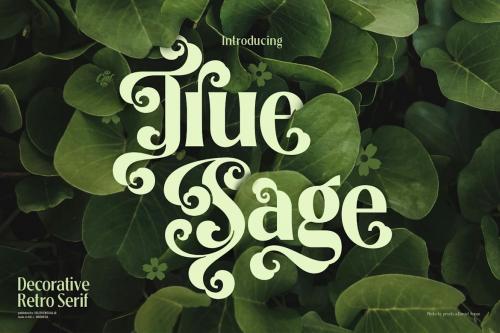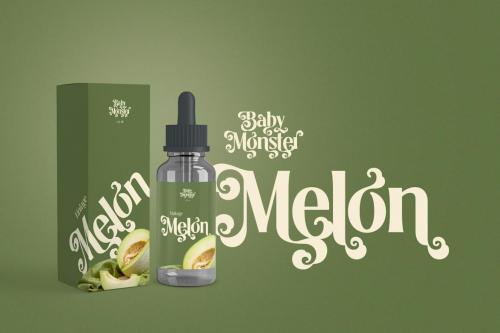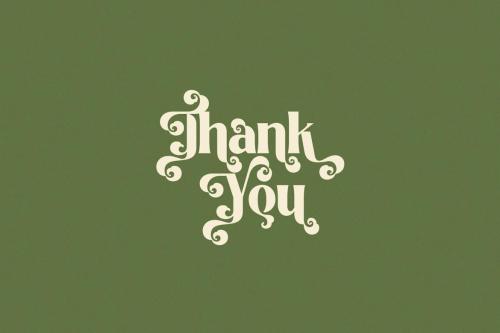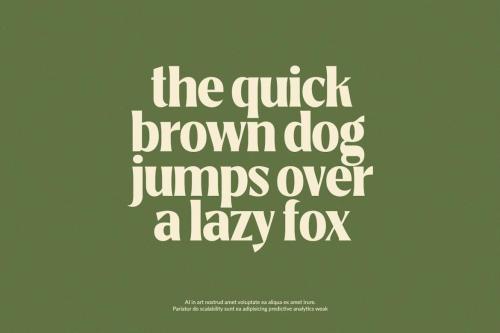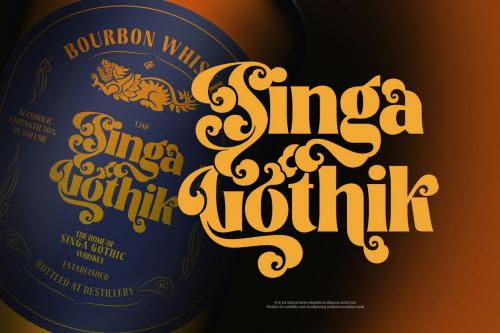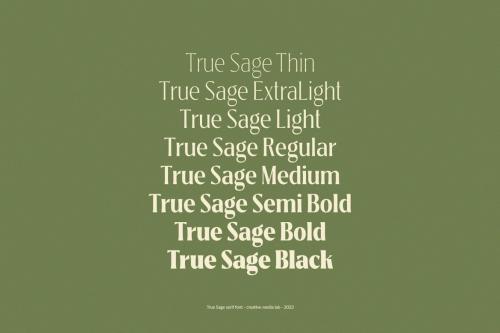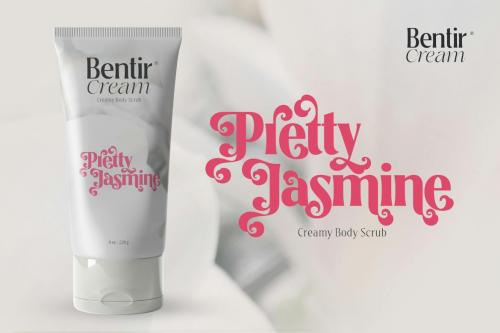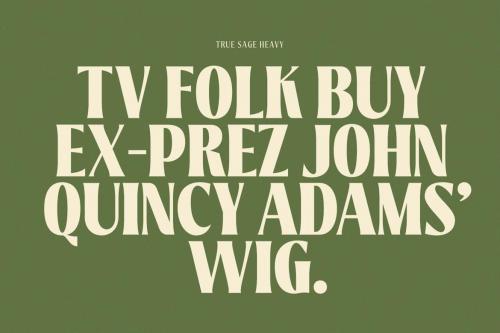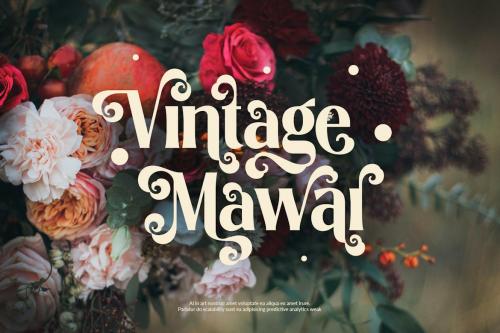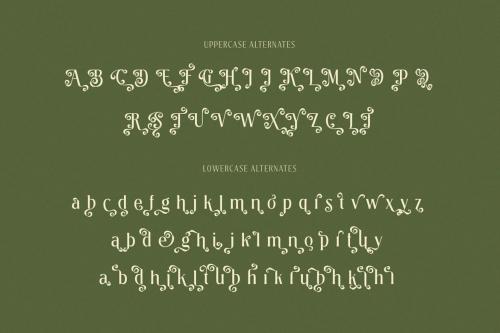
真 Sage - 现代复古维多利亚字体
True Sage - Modern Vintage Victorian font
True Sage is a pretty decorative serif family. Vintage retro style dressed with pretty swirly alternates makes the lettering look pretty and unique, perfect for your heading, title, or branding projects.